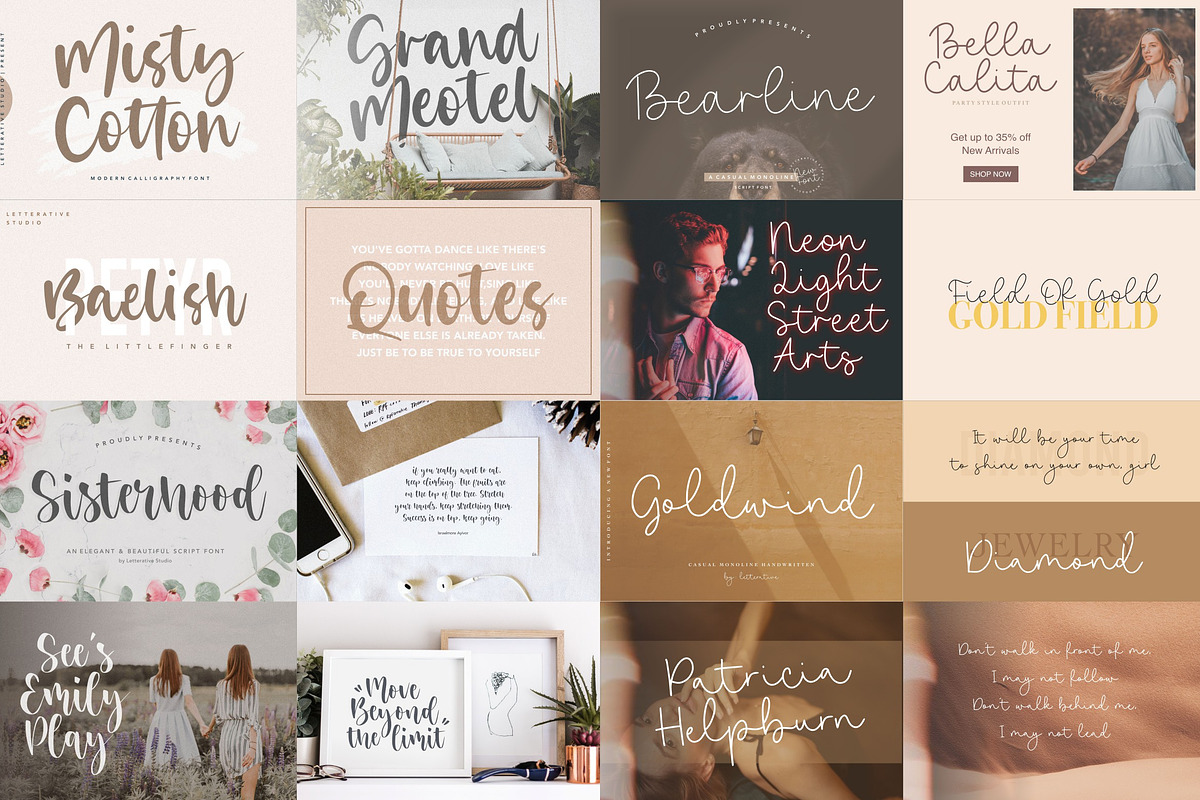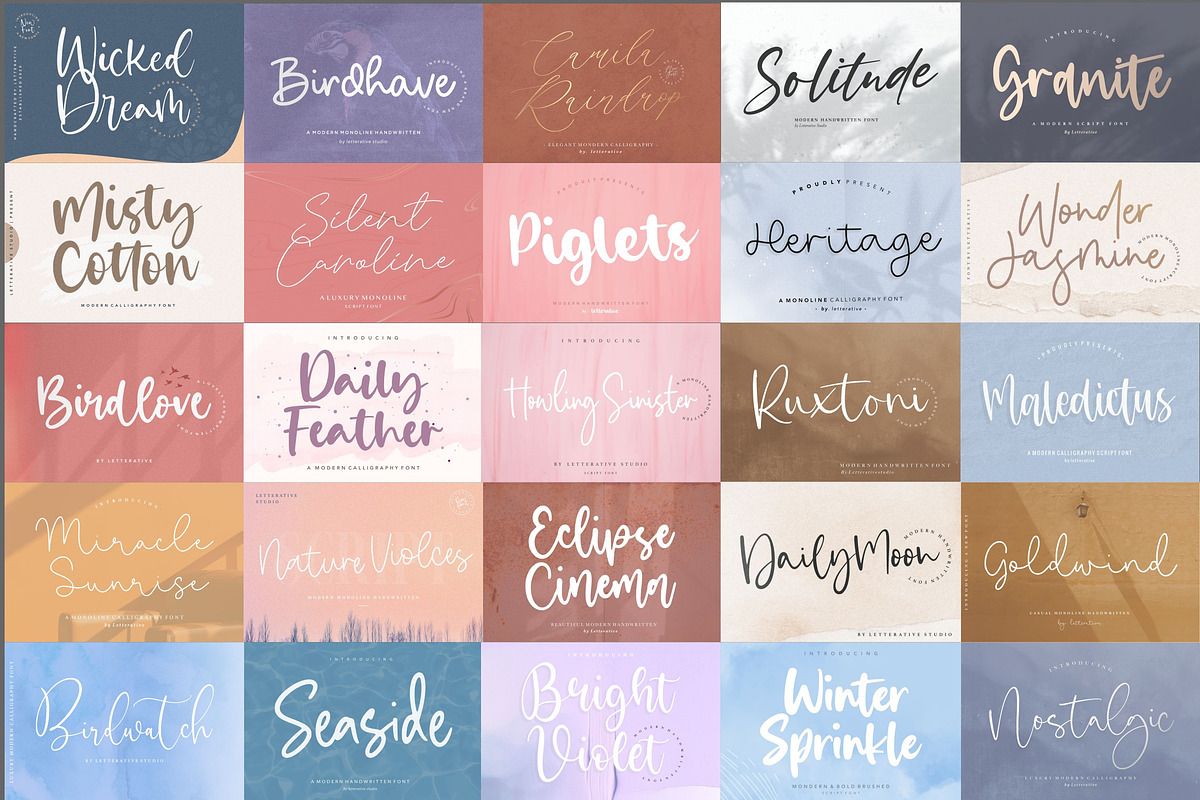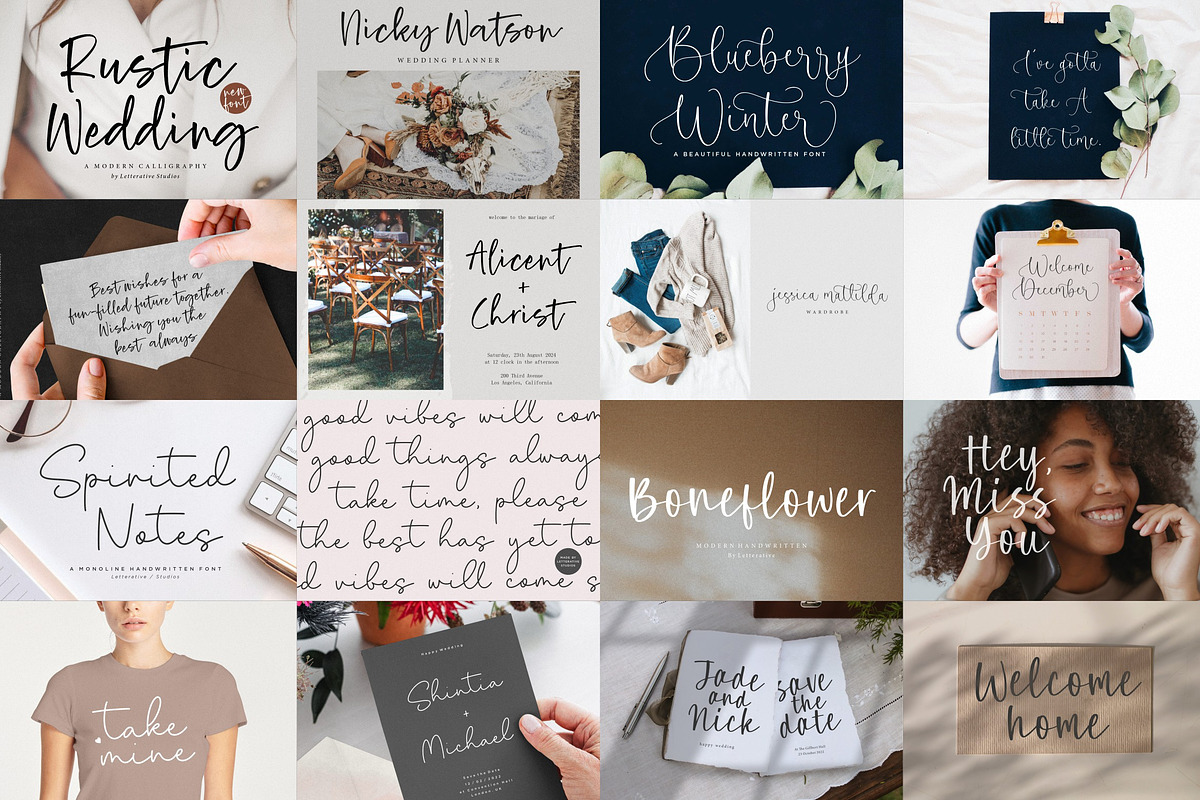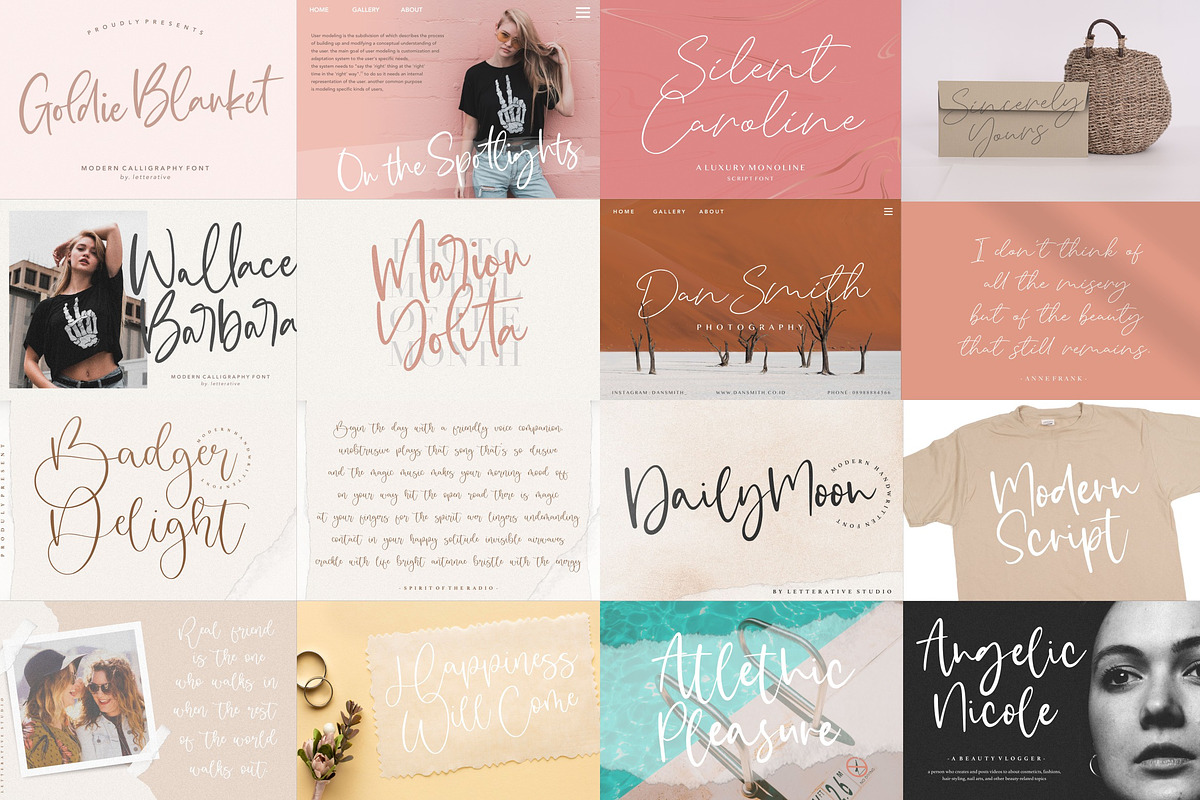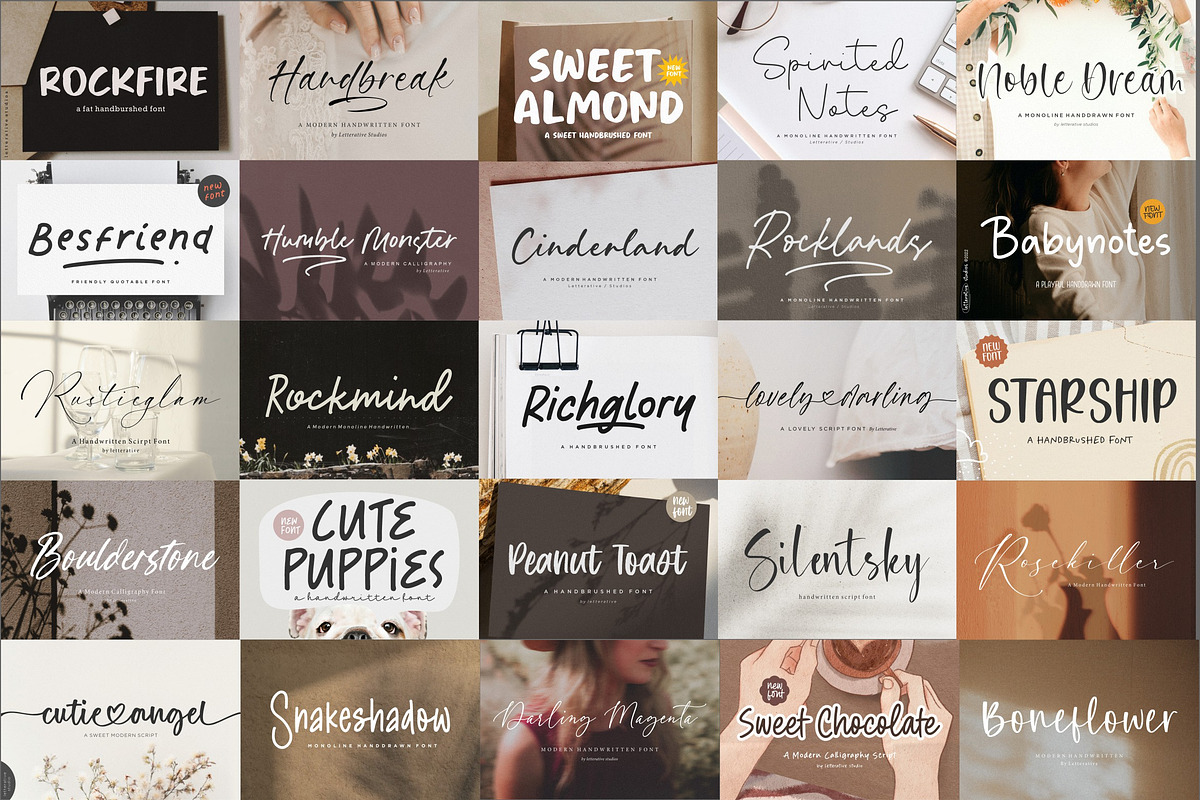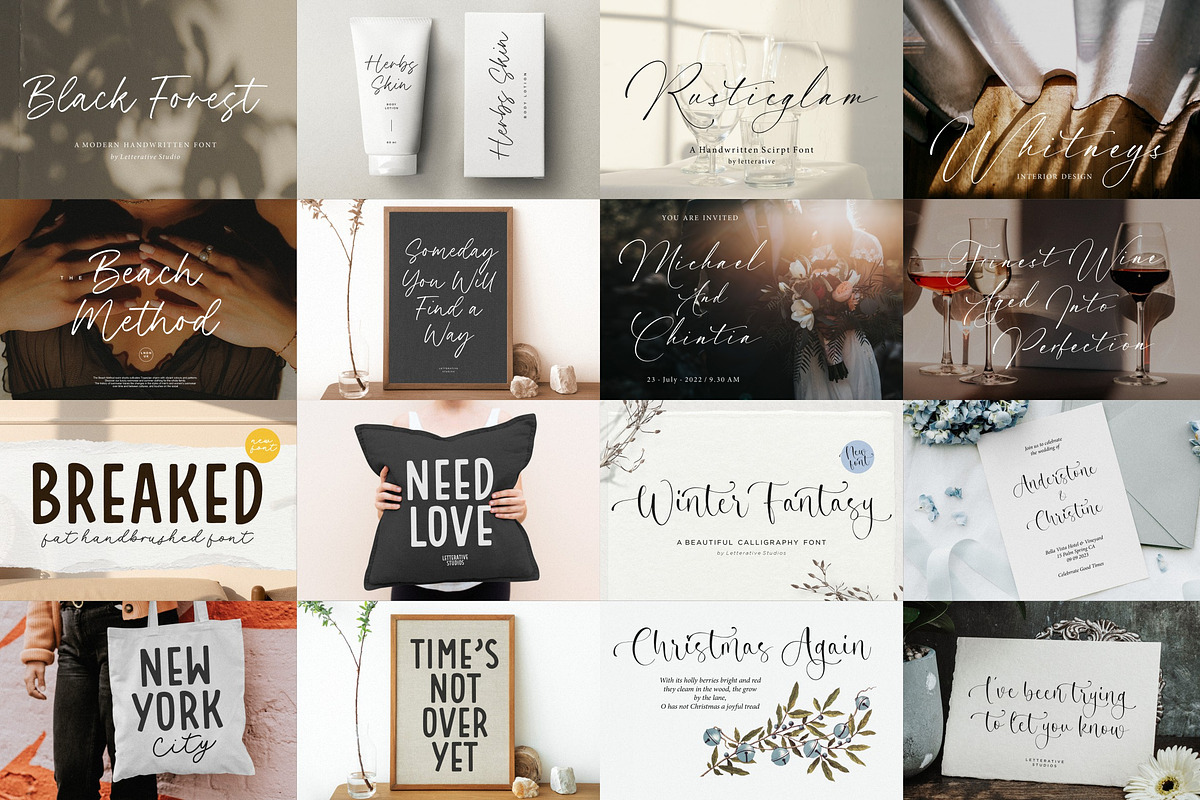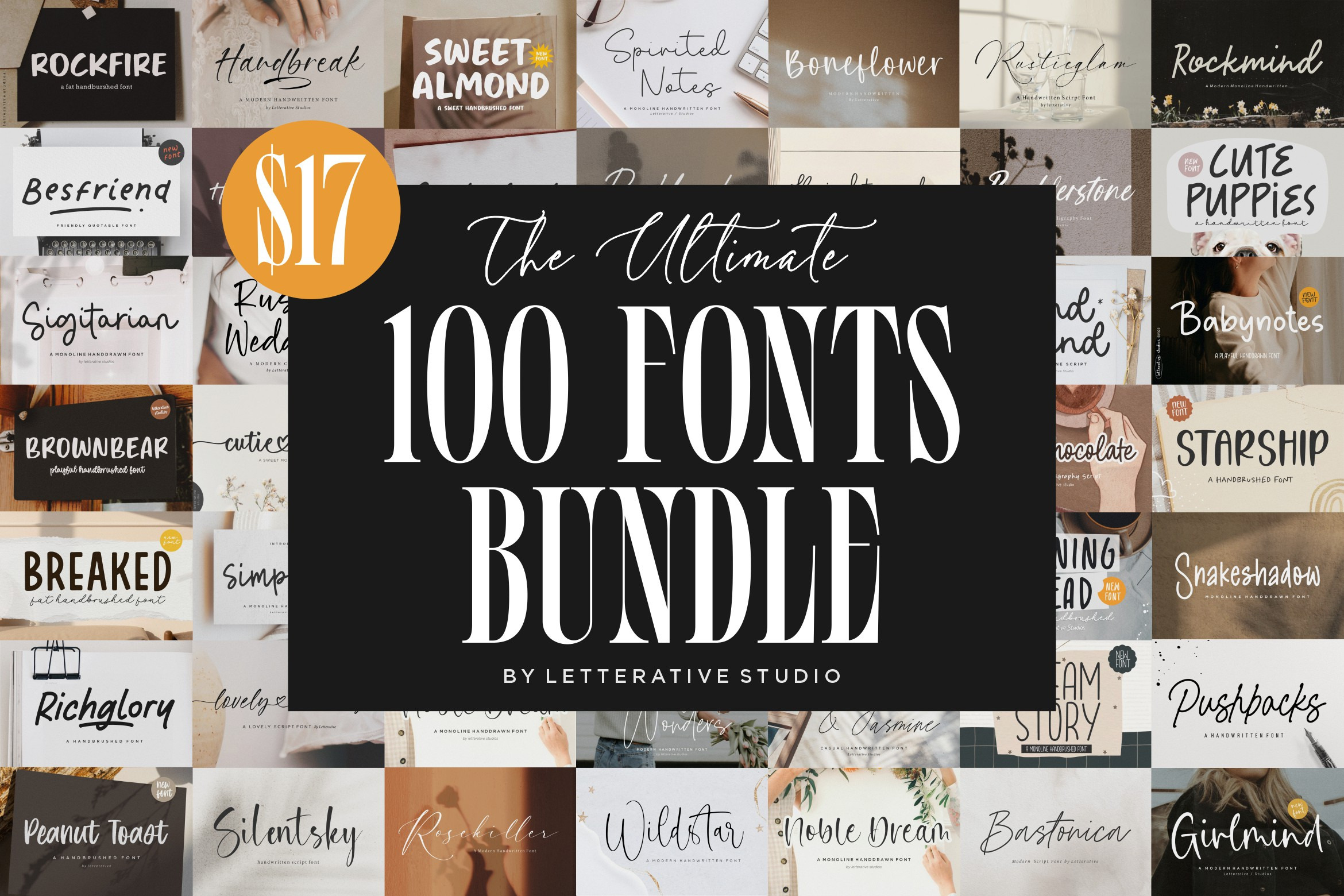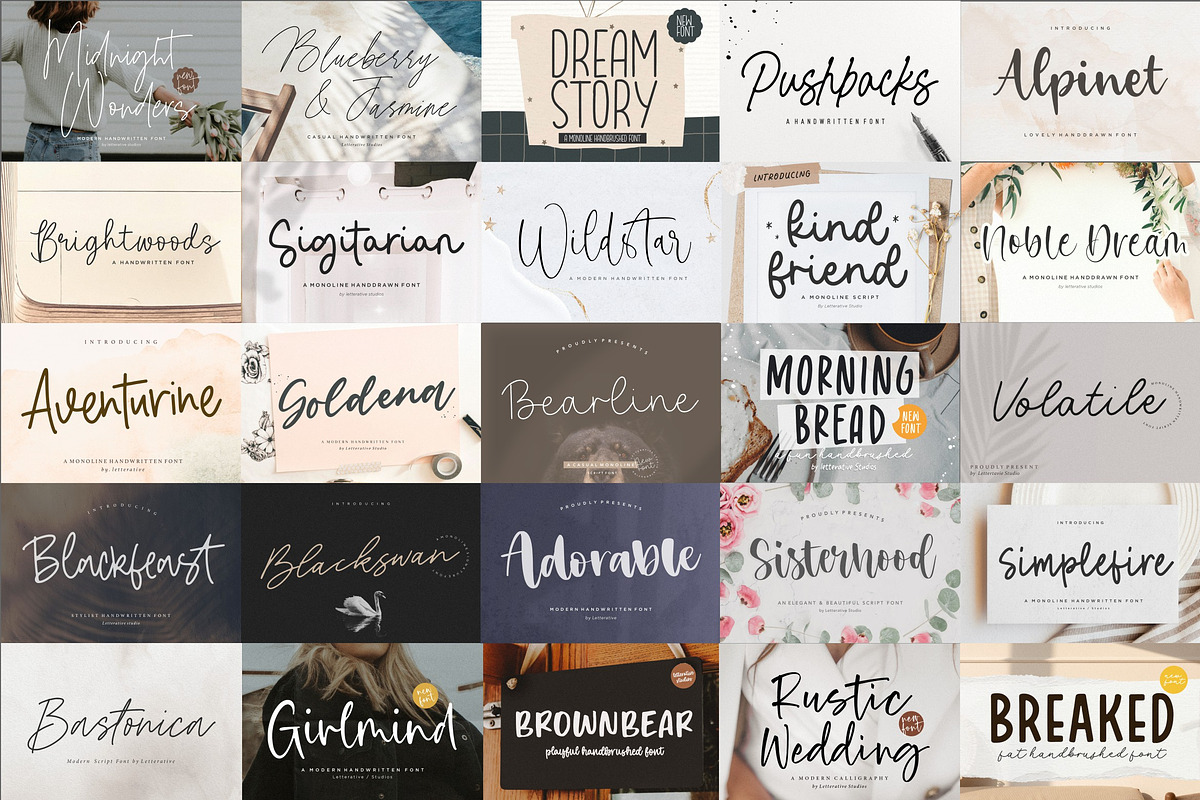
The ULTIMATE! 100 Font Bundle!
The Ultimate!
100 Font Bundle is here with an amazing selection of premium fonts for your crafting and DIY projects.
Give your designs a delicate and versatile feel with this bundle which is perfectly suited for cards, signature, stationery, logo, typography quotes, magazine or book covers.